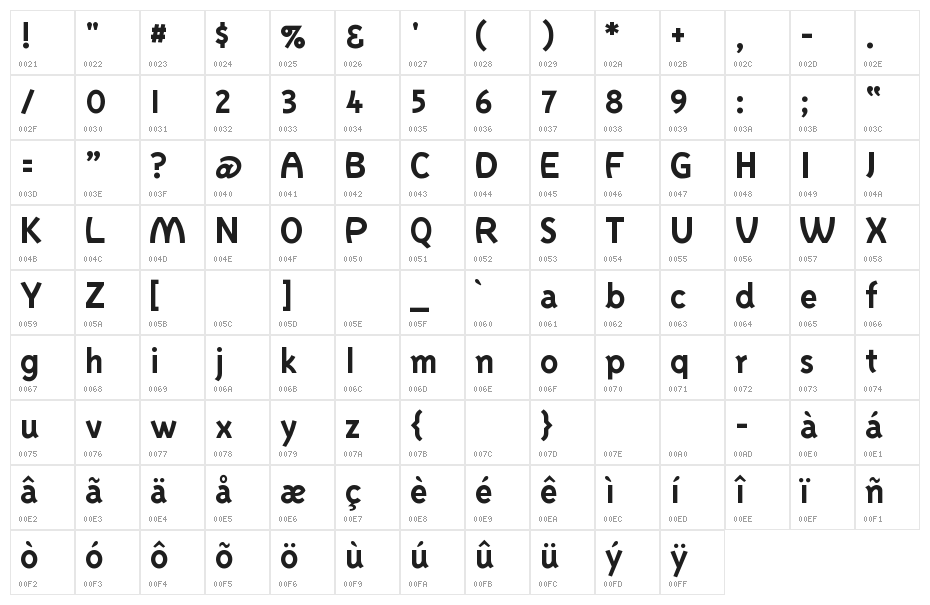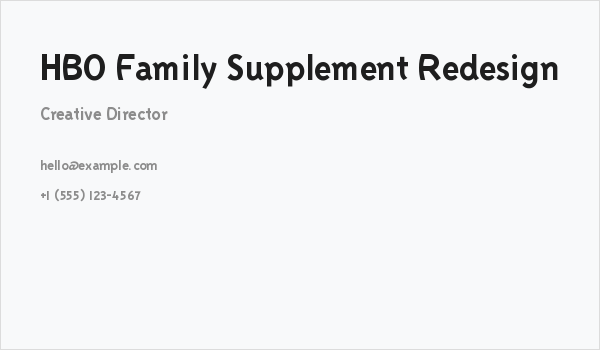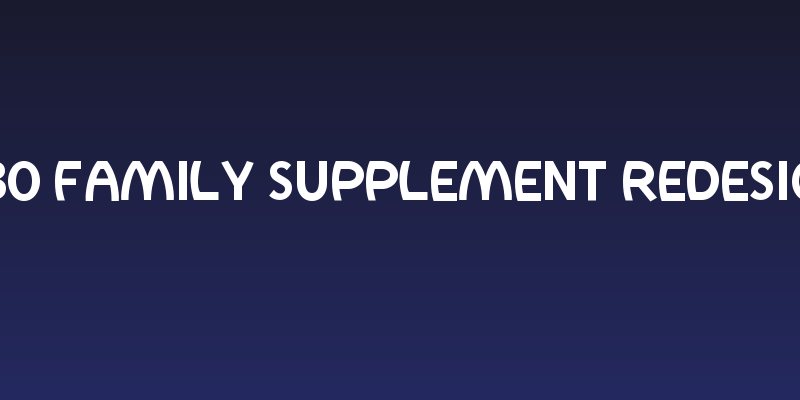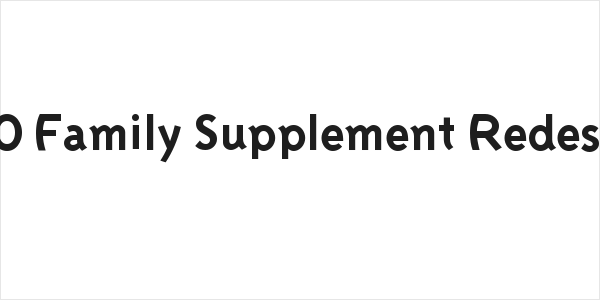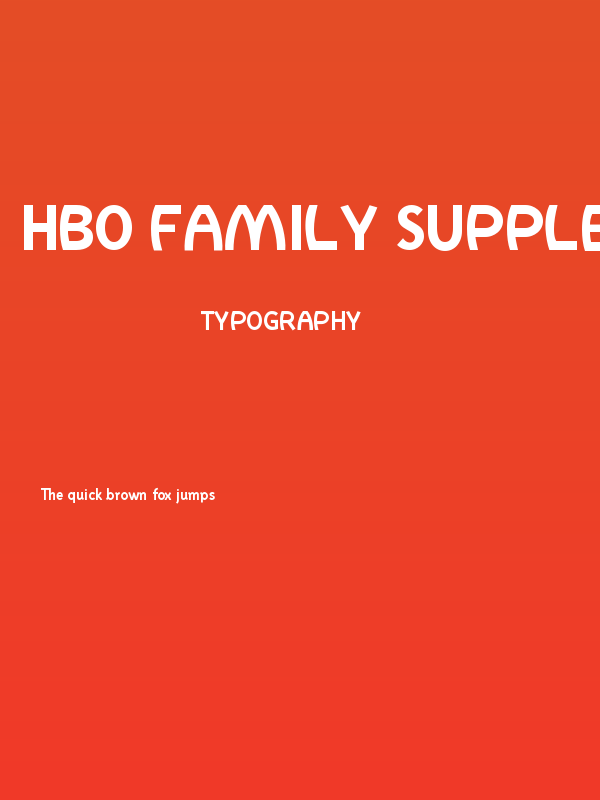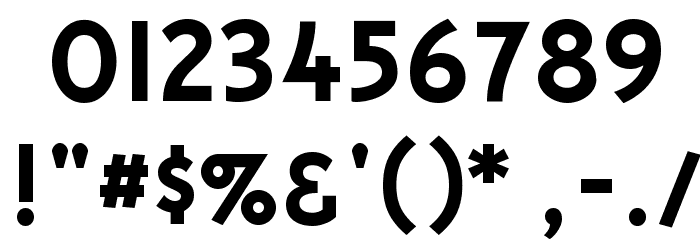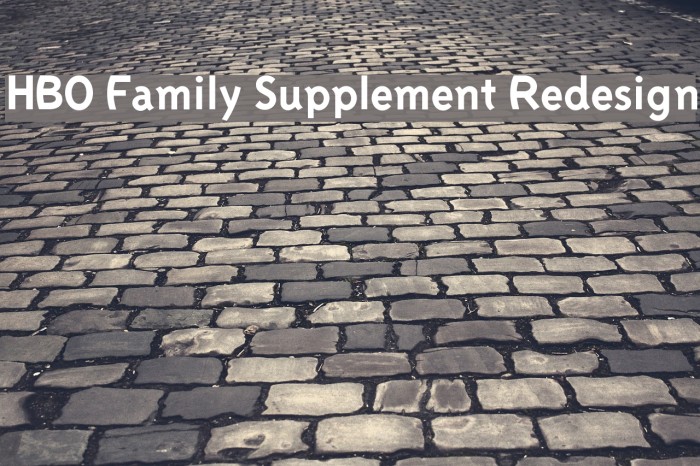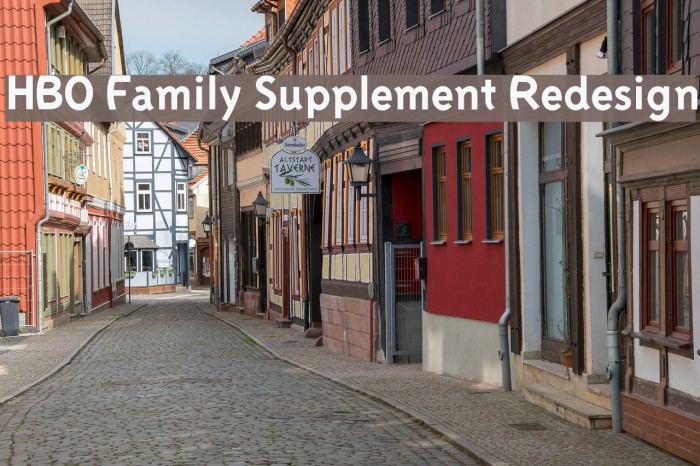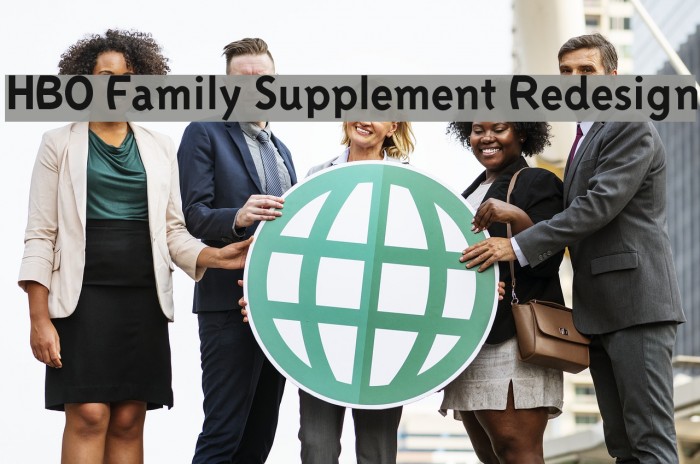
HBO Family Supplement Redesign Font
HBO Family Supplement Redesign Description
This font features a bold and modern design with clean, rounded edges and a slightly condensed appearance. The uppercase letters are uniform in height, while the lowercase letters maintain a consistent baseline, offering a harmonious balance. The numerals are clear and legible, matching the style of the alphabetic characters. Special characters are distinct and well-integrated, enhancing the font's versatility. The overall look is contemporary and friendly, making it suitable for various applications that require a strong yet approachable aesthetic.
| Use Case | Headlines, Logos, Digital Interfaces |
| Proposed Projects | Ideal for branding, advertising, children's media, and digital interfaces. |